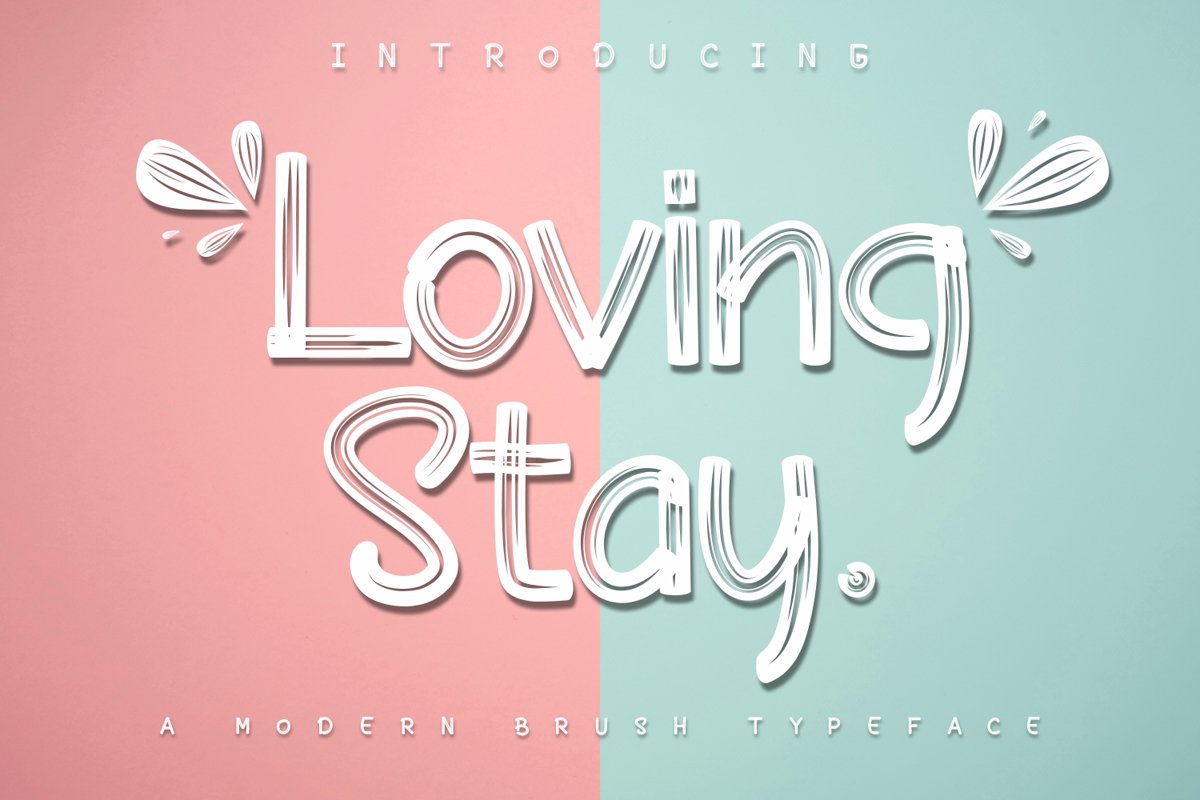
Loving Stay / Brush
Loving Stay
Lovingstay: is a fun display font, created by using a brush pen. Clean and a little bit quirky, this font is the perfect fit for all of your logos, branding, social media, and crafty DIY projects.